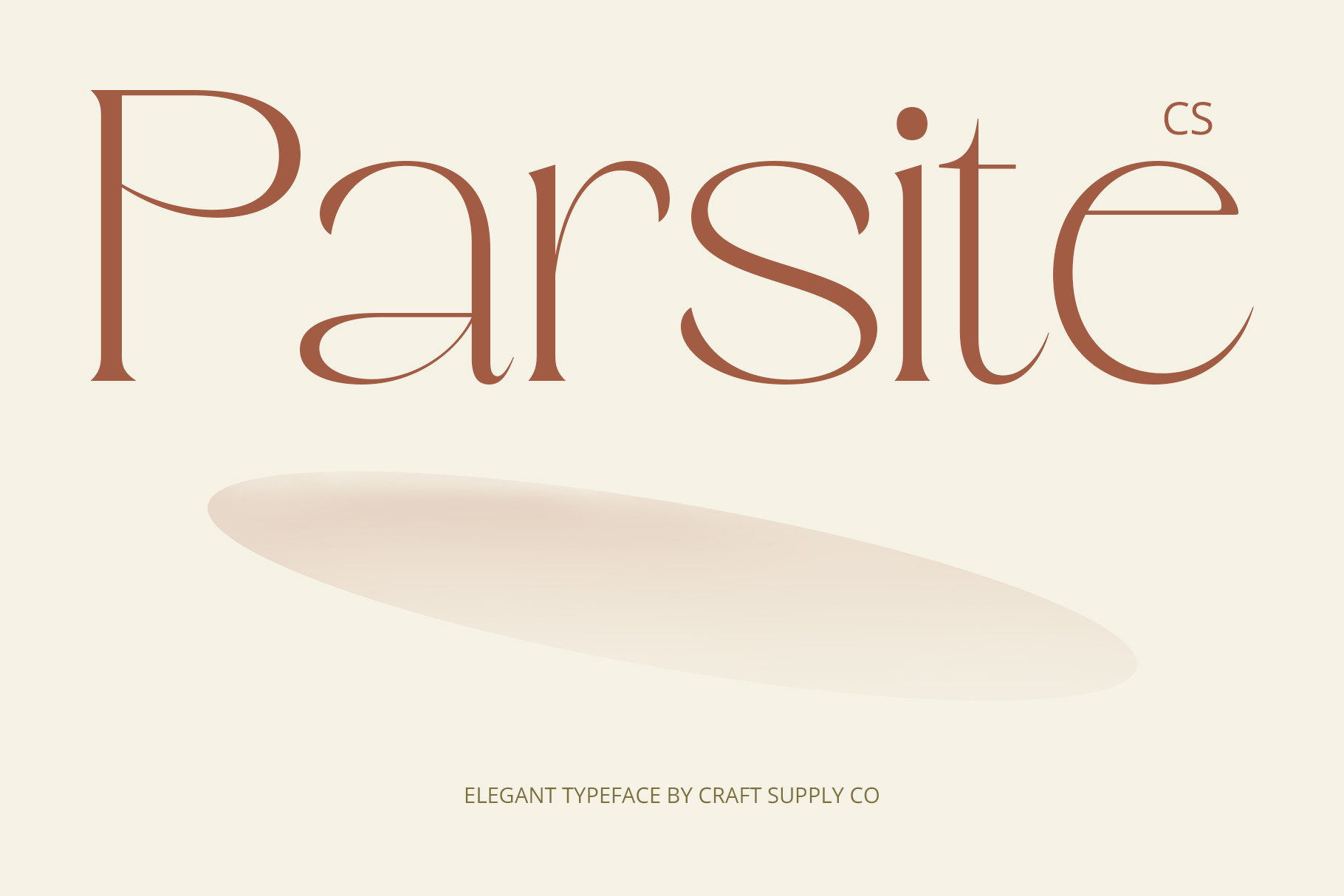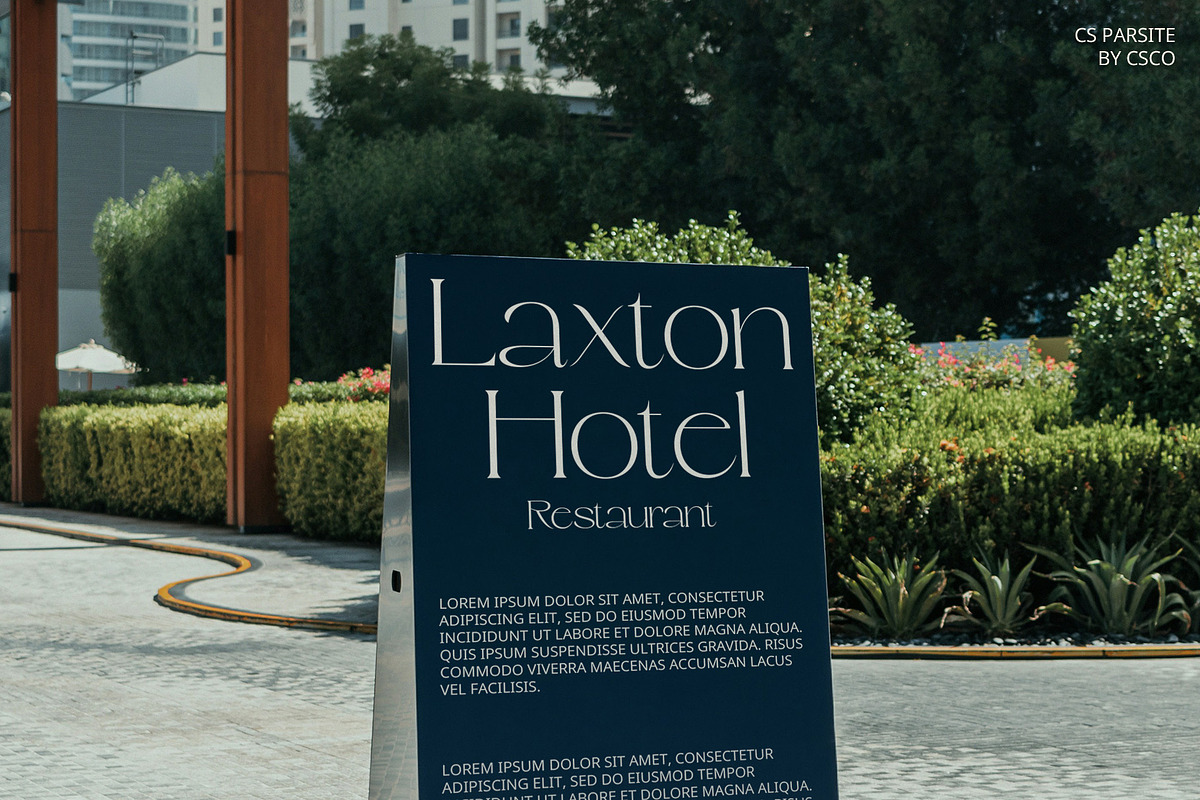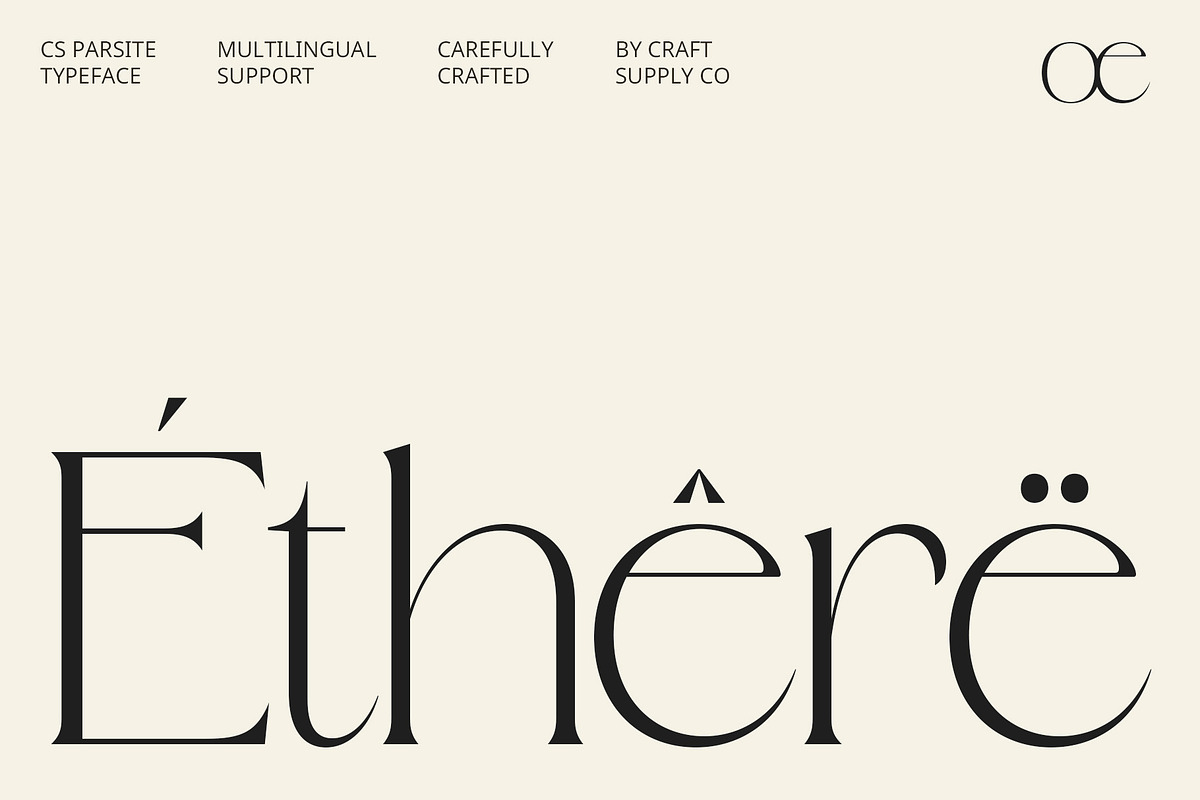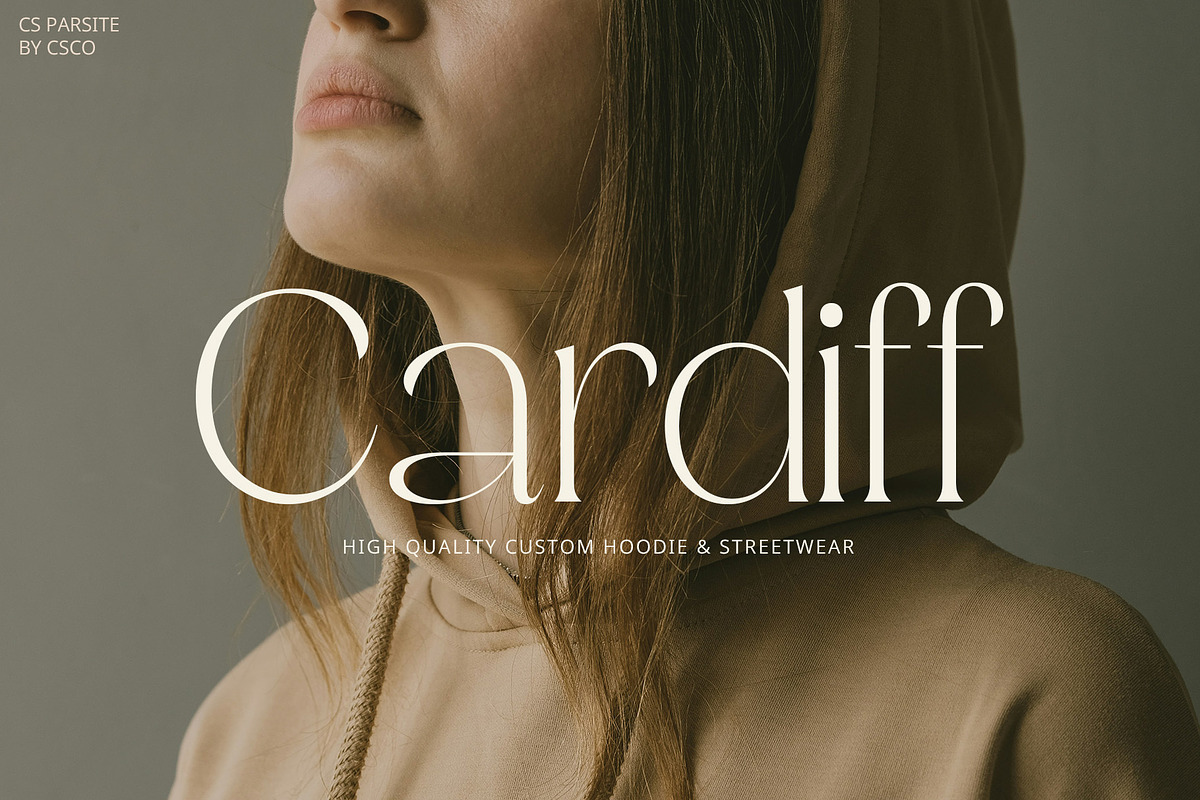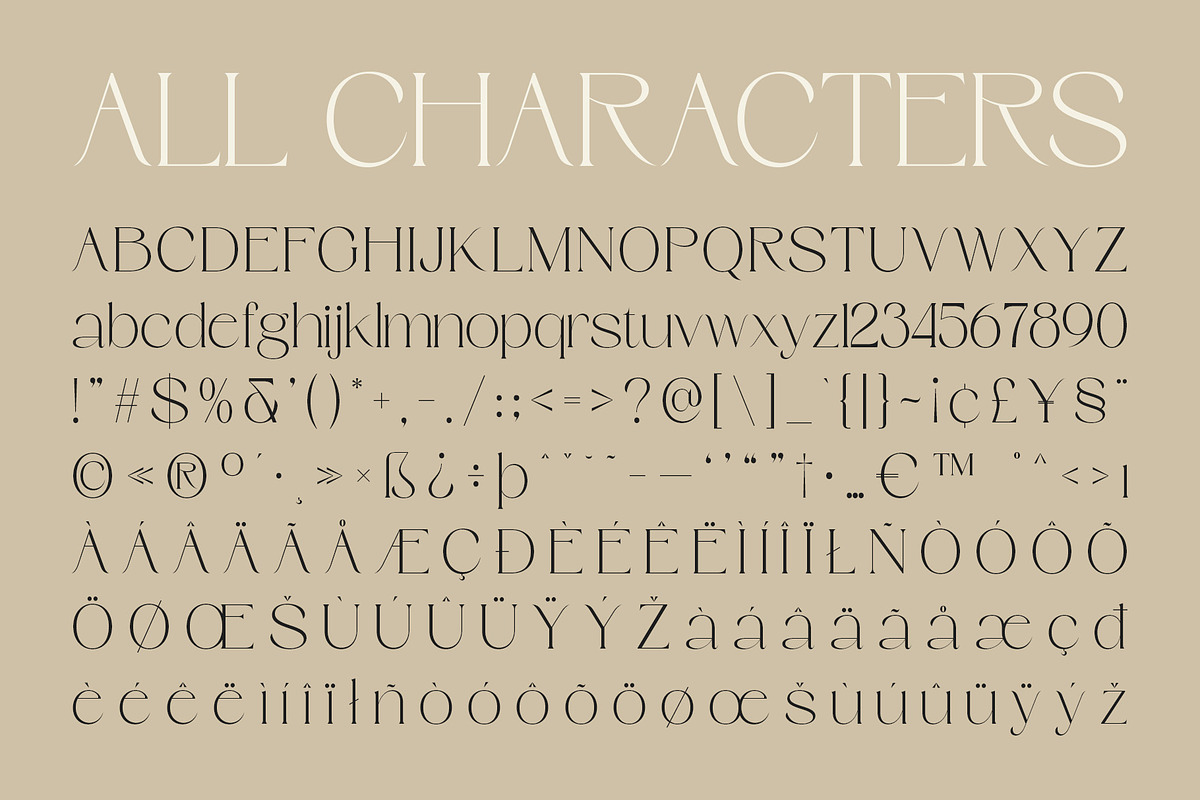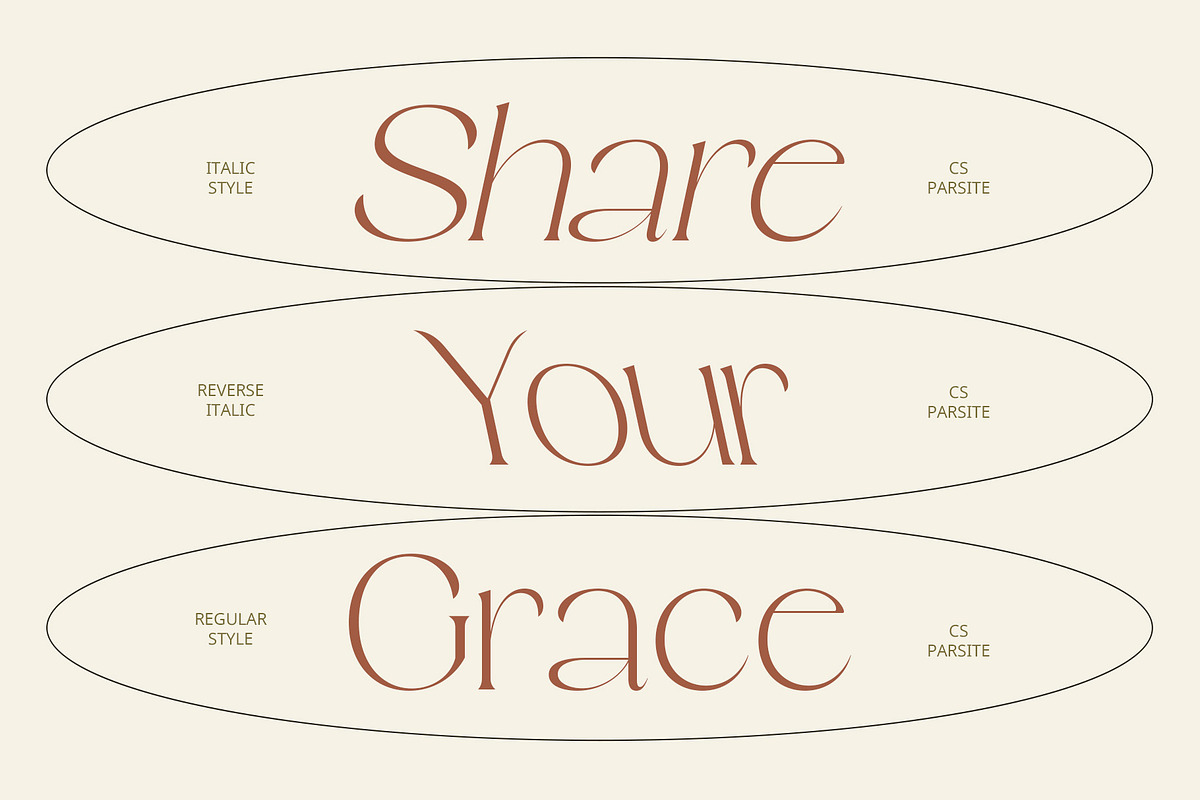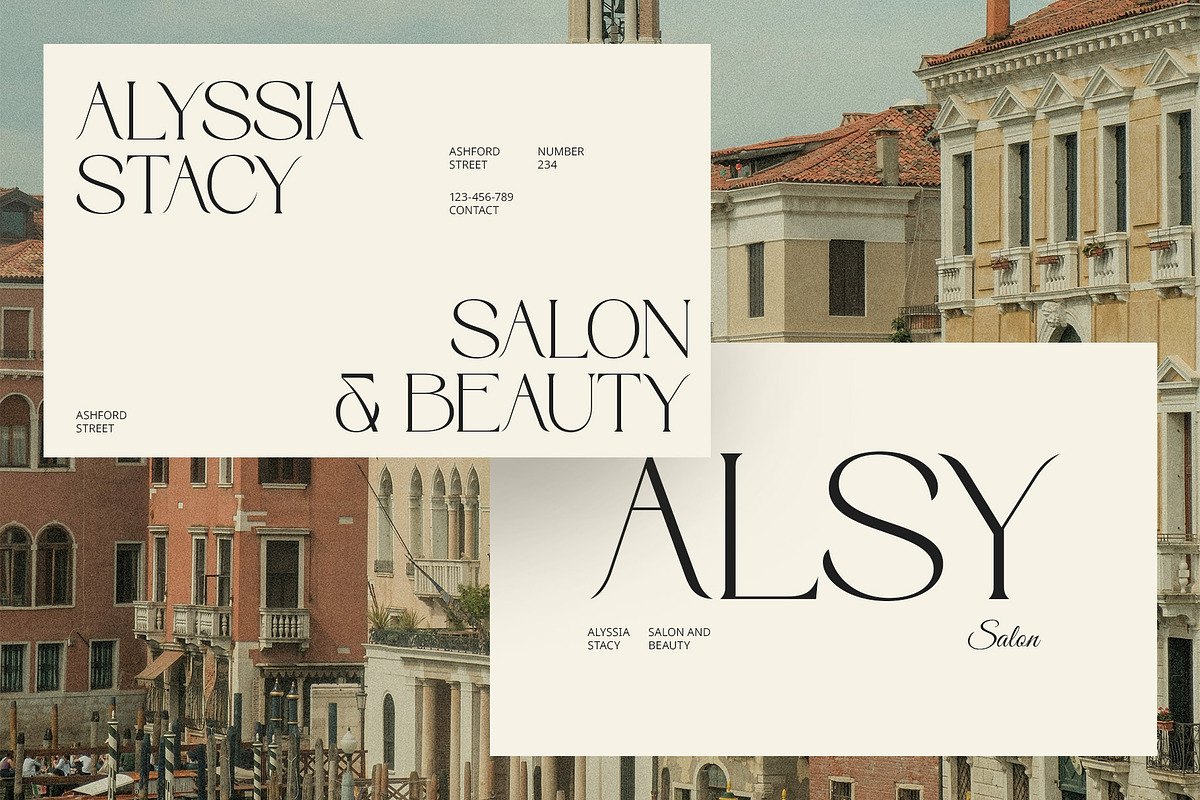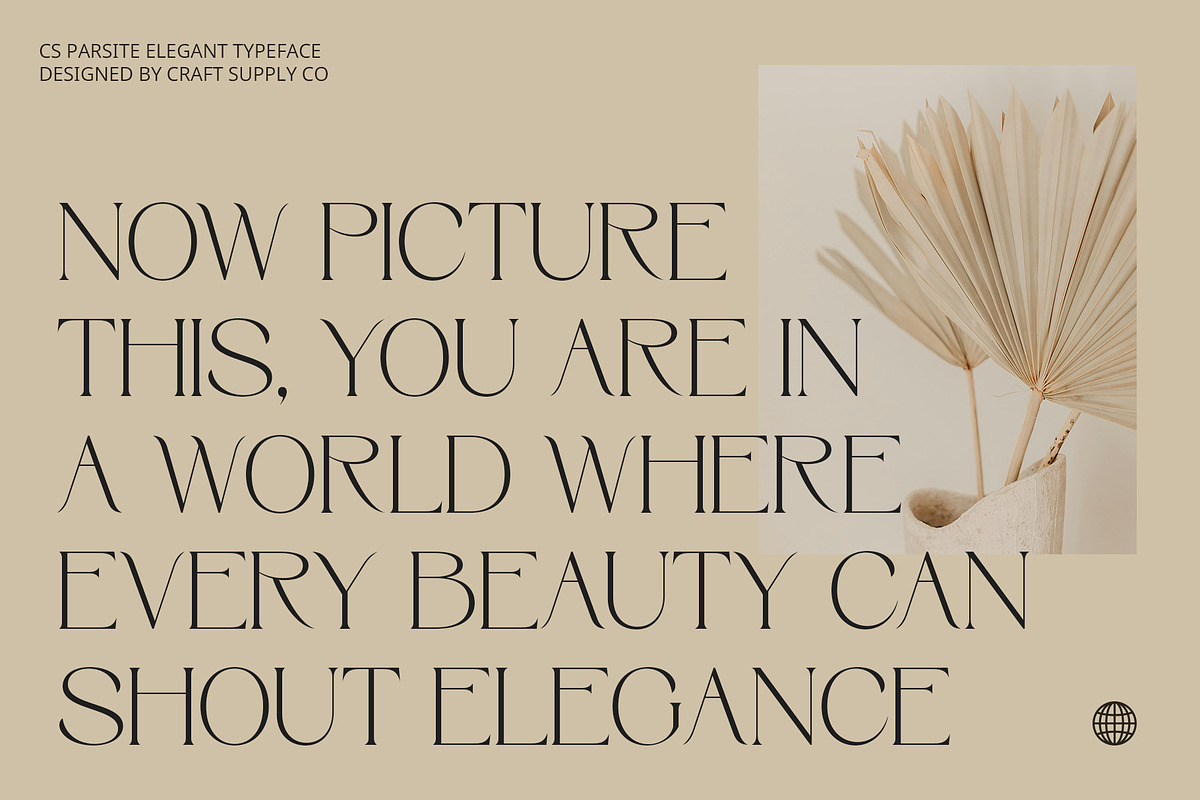
CS Parsite – Elegant Font
CS Parsite – Elegant Font: Refined Sophistication with Modern Grace
Modern Serif Font with Elegant Letterforms CS Parsite is a modern serif font that combines sleek, refined letterforms with an elegant aesthetic. Its design is ideal for upscale branding and sophisticated design projects, offering a blend of luxury and professionalism.
Clean Lines and Graceful Curves The font features clean lines and graceful curves that contribute to its luxurious and polished appearance. This combination enhances the font’s suitability for high-end editorial layouts and elegant invitations, ensuring a touch of class in every application.
Balanced Proportions for Timeless Appeal CS Parsite’s balanced proportions and subtle detailing provide a timeless and refined look. The font’s sophisticated design enhances the visual appeal of any project, making it perfect for projects that demand a blend of modern elegance and classic refinement.
Perfect for Upscale and Professional Projects Whether you’re working on high-end branding, sophisticated editorial work, or elegant invitations, CS Parsite delivers a polished and stylish impression. Its elegant design ensures a timeless touch that elevates the overall impact of your designs.
- CS Parsite Regular
- CS Parsite Italic
- CS Parsite Reverse Italic